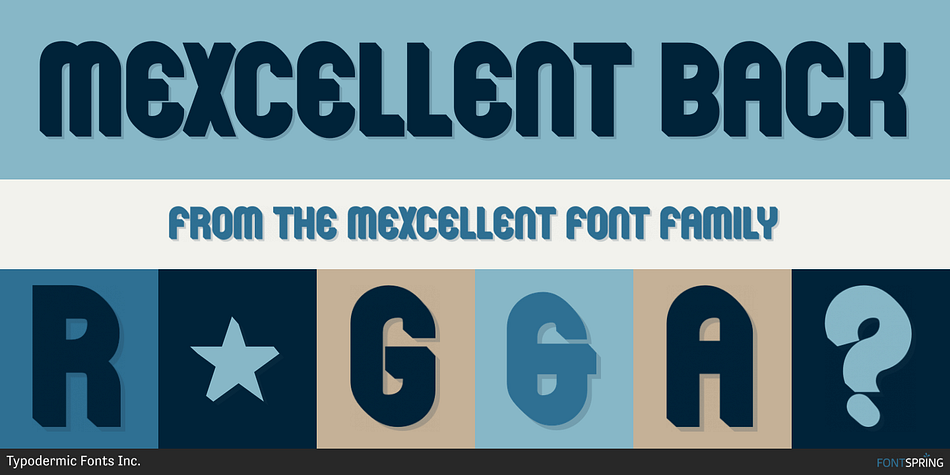
MEXCELLENT BACK
Mexcellent is a display sans font family. This typeface has five styles and was published by Typodermic Fonts Inc.
Welcome to the world of Mexcellent, a tri-linear stripe typeface that is sure to add a touch of jubilation to your designs! Inspired by the custom font created for the iconic 1968 Mexico City Olympic Games, this font will transport you to a world of vibrant colors and striking patterns.
With Mexcellent, you can experiment with layers to produce an endless array of captivating color effects. Let your imagination run wild as you explore the countless possibilities that this font has to offer.
Whether you’re designing a poster, a flyer, or even a social media graphic, Mexcellent will make your message pop. The cool stripes and playful angles will add a touch of flair and panache to your creations, setting them apart from the rest. Your audience will be captivated by the unique and innovative style that you bring to the table.